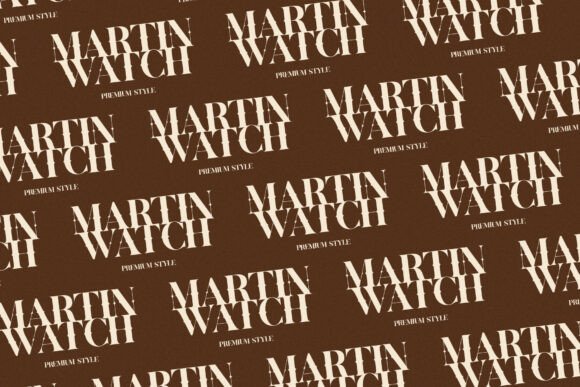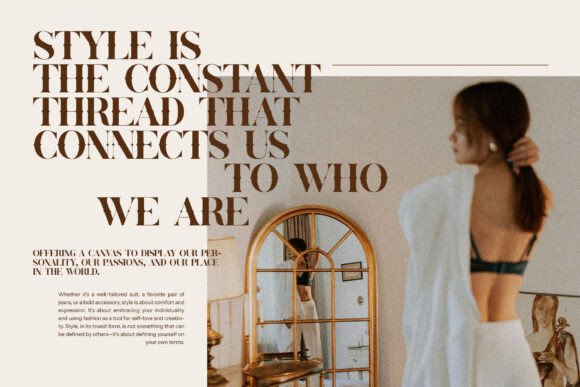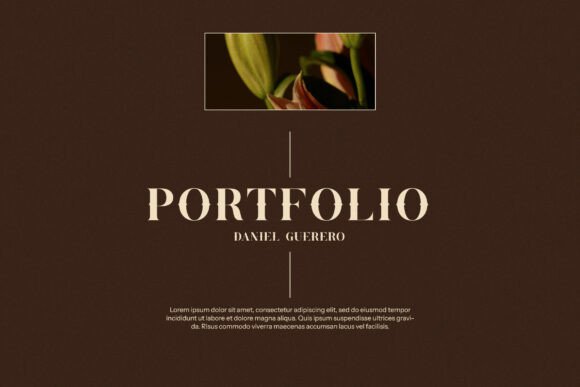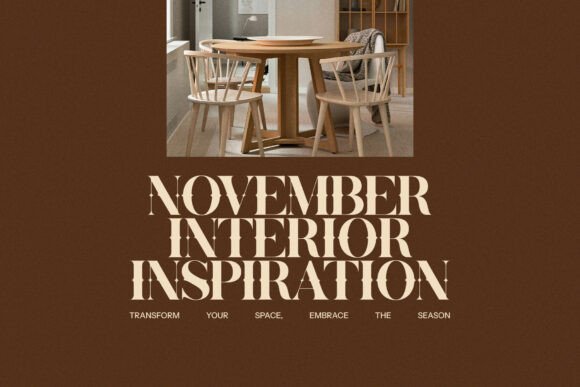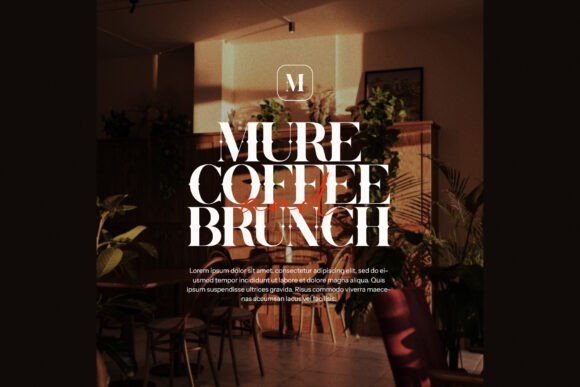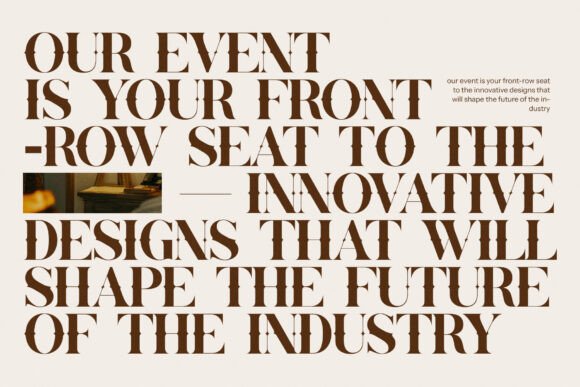
Introduction to Mivors Font
Mivors Elegant Serif Font is a beautifully designed typeface that effortlessly combines modern elegance with vintage sophistication.
Featuring classic serifs and refined curves, this font is ideal for projects that require a touch of style and distinction Whether youโre creating a luxury brand or working on a creative design, Mivors offers the perfect balance of beauty and functionality.